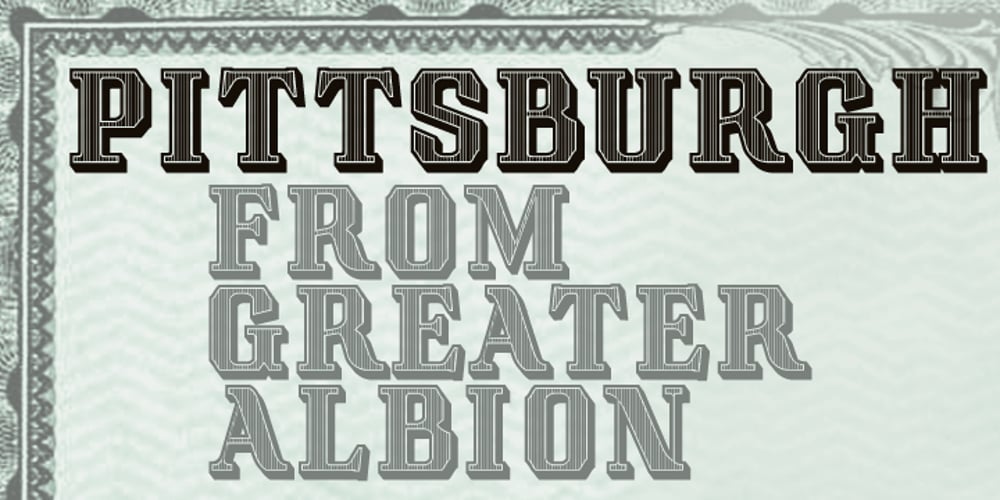
Pittsburgh
Pittsburgh font
Pittsburgh Font Family was designed by Paul James Lloyd and published by Greater Albion Typefounders. Pittsburgh contains 1 styles and family package options. Pittsburgh is the latest (as at August 2011) in a range of inter-war American inspired commercial faces, and takes its place alongside the popular Bettendorff and the Spargo family. These shaded stab-serif capitals speak of the heyday of heavy manufacture and engineering and bring a gritty feel of the 20s and 30s to any project. Why not indulge in a little heavy engineering today?